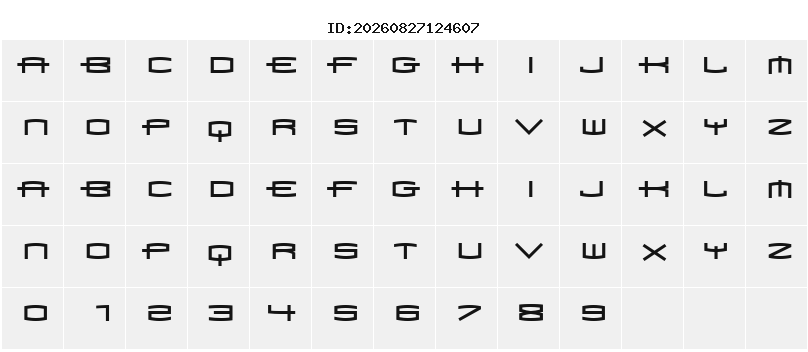
• Copyright: I made this font so I could have something looked like the Pumpkins 1979 single.
About 1979.ttf
1979.ttf is a modern, elegant sans-serif font designed for ultimate readability and visual harmony. Perfect for branding, headlines, web design, and print materials.